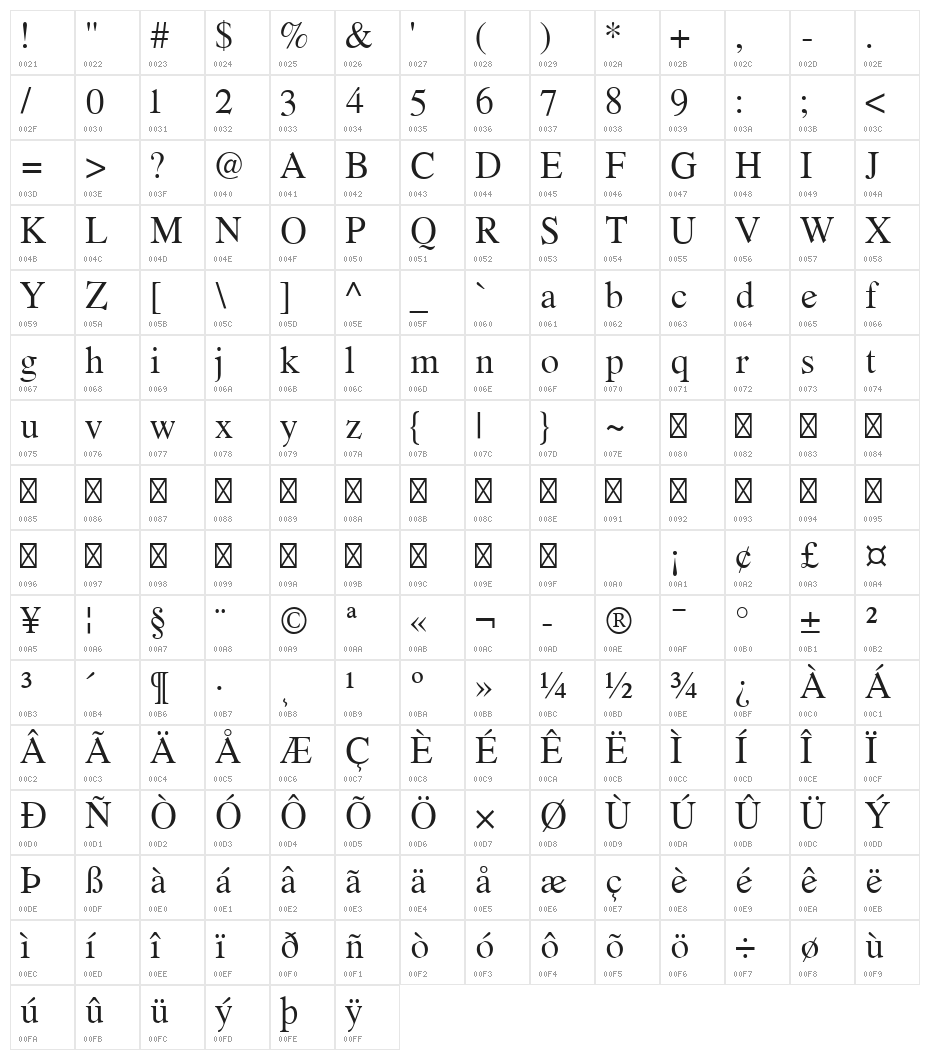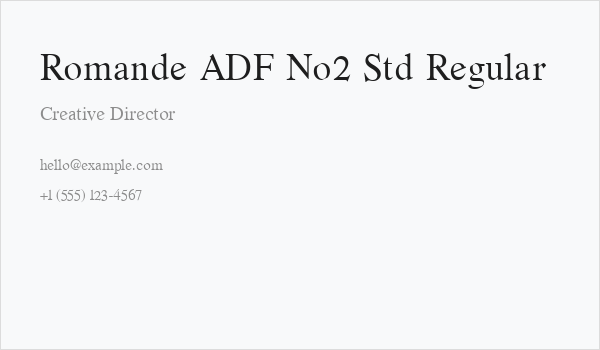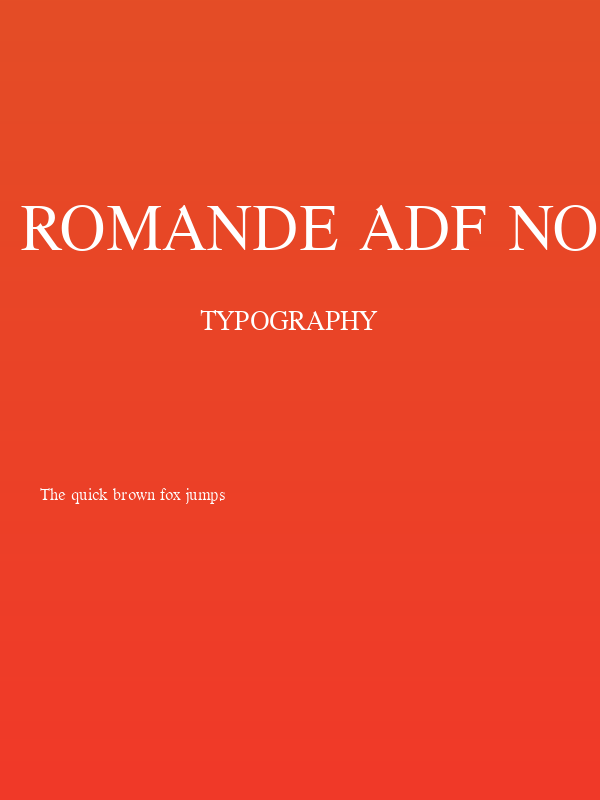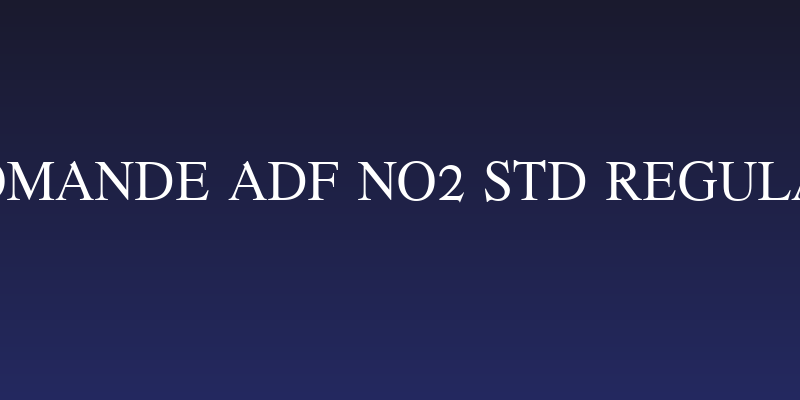
Romande ADF No2 Std Regular Font
Romande ADF No2 Std Regular Description
This typeface features a classic serif design, characterized by its elegant and refined strokes. The uppercase letters exhibit a traditional form with moderate contrast between thick and thin strokes, giving it a sophisticated appearance. The lowercase letters maintain a consistent style, with smooth curves and sharp serifs that enhance readability. The numerals are proportionate and align well with the overall aesthetic, while the special characters are distinct and well-integrated. This font exudes a timeless quality, making it suitable for a variety of formal and professional applications.
| Use Case | Body text, Headlines, Editorial design |
| Proposed Projects | Ideal for book publishing, formal invitations, academic papers, and corporate branding. |